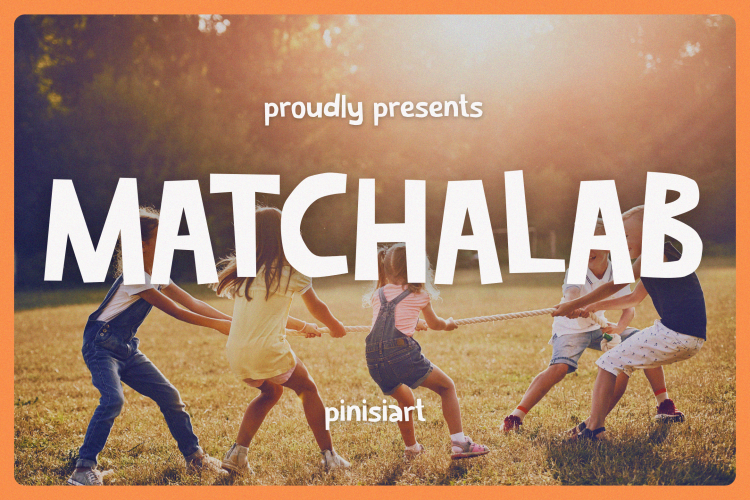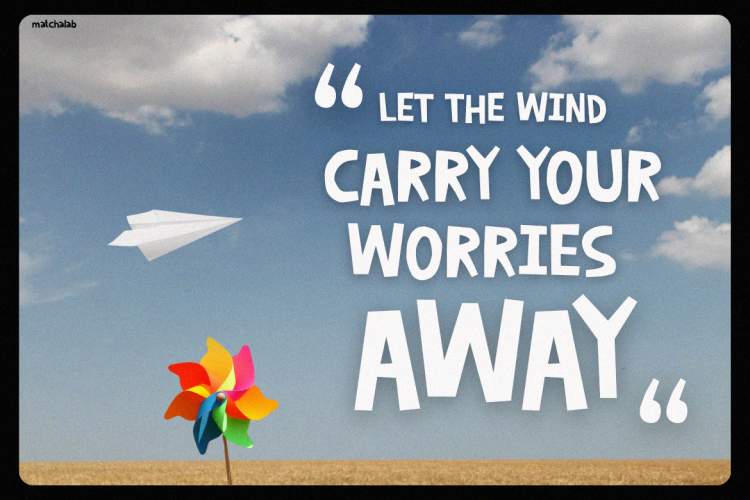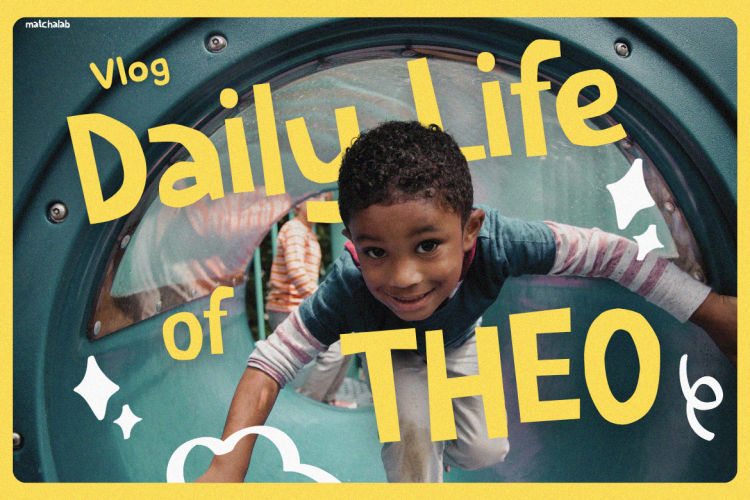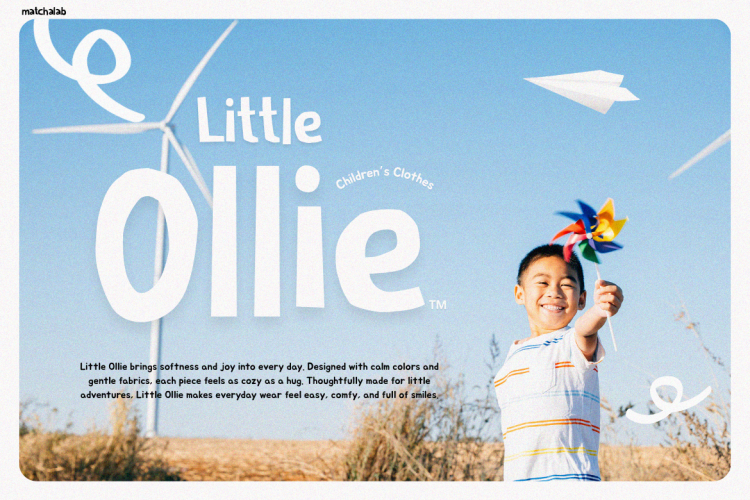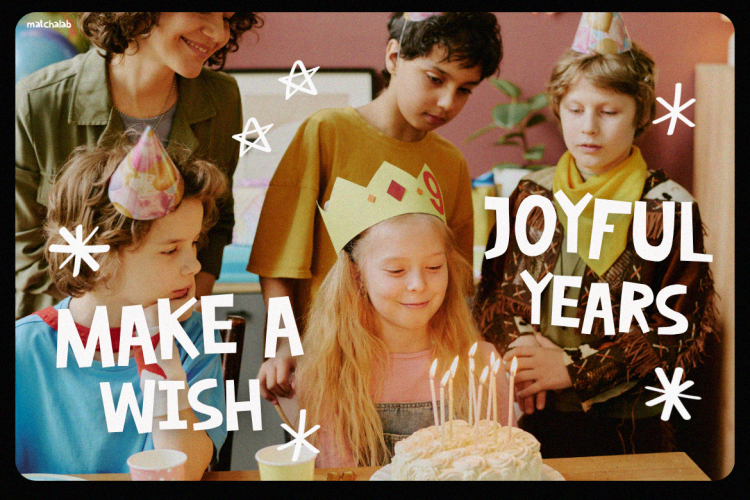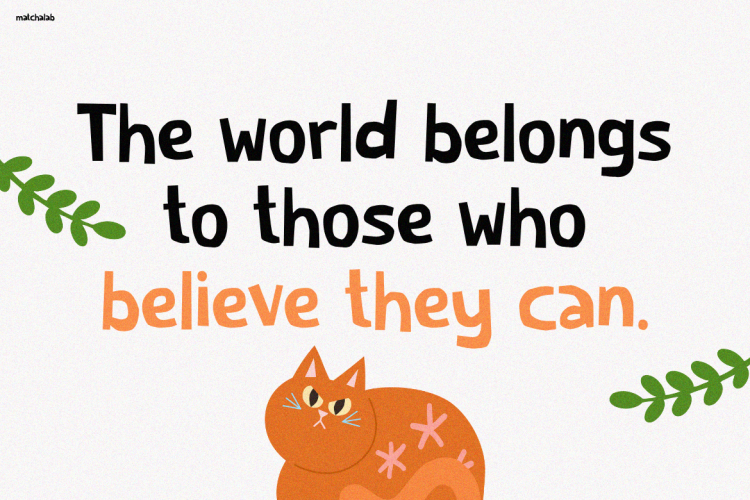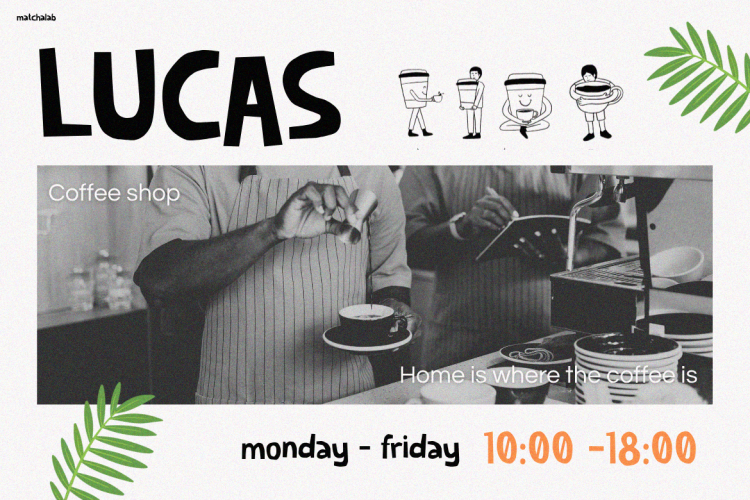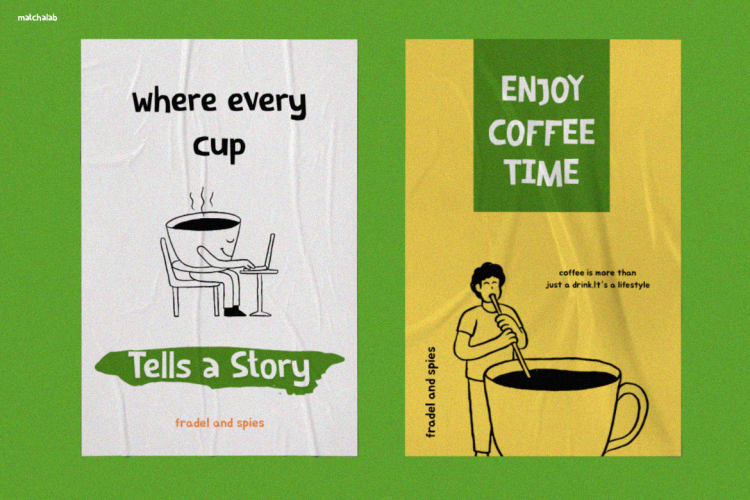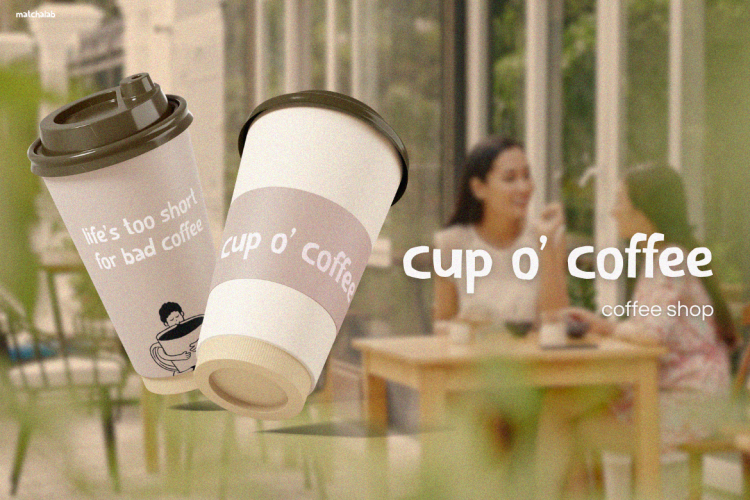
Instagram Font Matchalab – Aesthetic & Versatile Font for Modern Storytelling
Instagram Font Matchalab isย a uniquely crafted display typeface that perfectly balances playfulness and elegance. With its rounded edges, organic lines, and smooth flow, this font effortlessly adds warmth and authenticity to every design. Moreover, it combines simplicity with creativity, making it both eye-catching and comfortable to read. Because of its charming curves and soft rhythm, it instantly draws attention while maintaining a professional look. Therefore, whether youโre designing for Instagram, branding materials, or lifestyle projects, Matchalab naturally brings a friendly, handcrafted vibe to your work.
What truly makes Matchalab special is its ability to adapt across styles. While many fonts feel rigid or cold, Matchalab feels alive and expressive. It transitions smoothly from bold headlines to casual captions, ensuring that your message remains stylish yet approachable. In addition, its clean aesthetic makes it suitable for minimalist designs, while its playful charm enhances creative layouts. As a result, it becomes an excellent choice for anyone seeking a balance between artful expression and modern design clarity.
This versatile font is perfect for content creators, branding designers, social media managers, and small business owners who want to create visuals that connect emotionally. Furthermore, it fits beautifully in coffee shop menus, lifestyle blogs, YouTube thumbnails, or motivational posters. Because of its friendly tone and organic energy, it also suits childrenโs projects and handmade product packaging.
Additionally, if you run a brand that thrives on social media, Matchalab helps you communicate in a style that feels both personal and trendy. It supports storytelling through design, turning simple words into beautiful visuals that reflect creativity and authenticity. Hence, itโs not just a font โ itโs a visual experience that strengthens your brandโs identity.
In short, Instagram Font Matchalab isnโt merely typography โ itโs personality in every letter. With its balance of fun and sophistication, it helps you design posts, quotes, and branding materials that truly stand out. So, if you want your projects to feel lively, modern, and relatable, this font is the one for you.
Bring your creative vision to life โ and let Matchalab speak your brandโs story with style, warmth, and confidence.